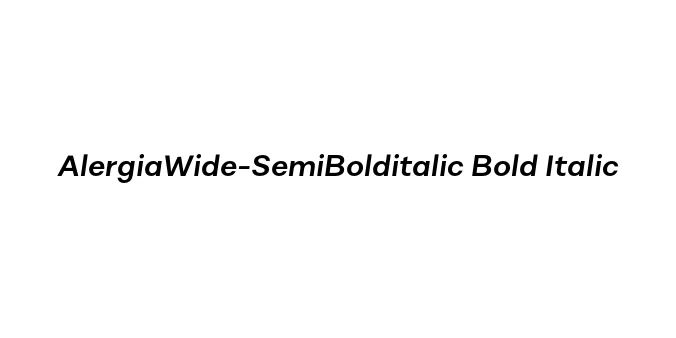
AlergiaWide-SemiBolditalic Bold Italic
Designed by Mateusz Machalski
Alergia Wide SemiBold Italic is a sophisticated part of the larger Alergia typeface family, designed by the acclaimed Polish typographer Mateusz Machalski. This font represents a unique hybrid design, blending characteristics of classic grotesque, slab serif, and geometric typefaces. The Wide variant is specifically characterized by its expanded horizontal proportions, which lend a sense of stability and authority to any layout, making it an excellent choice for modern visual identities.
The SemiBold Italic weight offers a perfect balance between impact and elegance, providing a rhythmic slant that adds dynamism to the page. It was meticulously crafted to ensure high legibility in both digital environments and high-end print media. Whether used for bold editorial headlines or striking brand marks, Alergia Wide SemiBold Italic delivers a contemporary aesthetic that bridges the gap between traditional craftsmanship and digital-age versatility.
AlergiaWide-SemiBolditalic Bold Italic Best Uses
Ideal for creating strong, expansive logos and corporate identity systems.
Perfect for magazine headlines and pull quotes that require a distinct personality.
Excellent for hero sections, landing page headers, and bold call-to-action buttons.
Highly effective for billboards and posters where visibility and style are paramount.